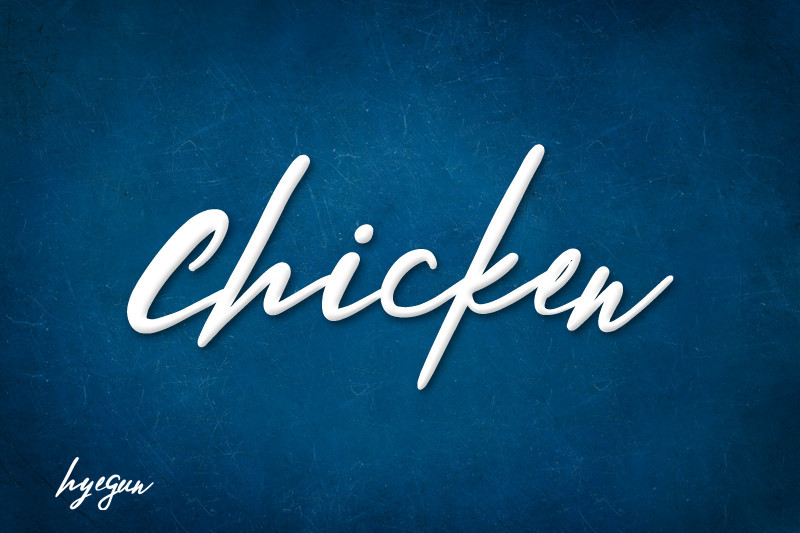
Rethogen Atomics Font
Rethogen Atomics Font is a script typeface, suitable for any projects such as logos, branding projects, homeware designs, product packaging, mugs, quotes, posters, shopping bags, t-shirts, book covers, name card, invitation cards, greeting cards, label, photography, watermark, special events, and all your other lovely projects that need a beautiful script taste.